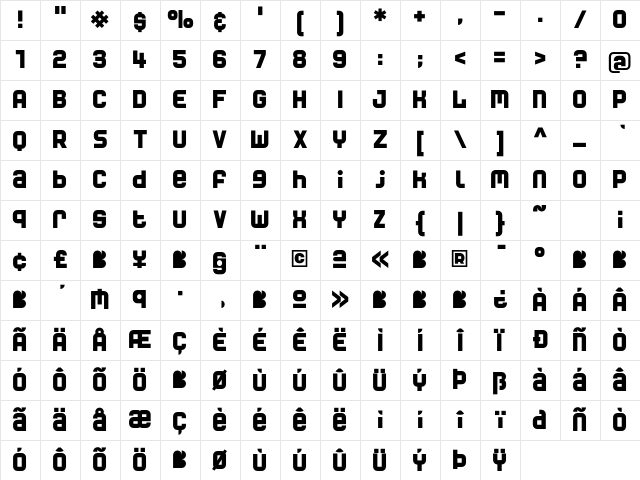
World One
Style: One
World One
Design Context for World
World is a composed and adaptable typeface that performs quietly and consistently across a wide range of design contexts.